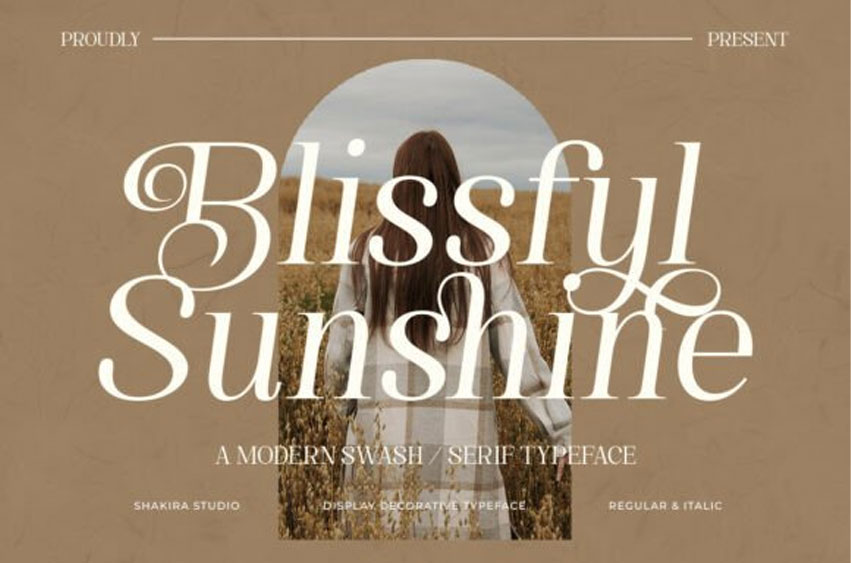
Blissful Sunshine Font
Blissful Sunshine Font is a modern elegant swash serif designed with graceful curves and stylish contrast.
This romantic typeface is perfect for wedding invitations, branding, packaging, and feminine editorial layouts. Ideal for designers creating romantic and boutique branding.